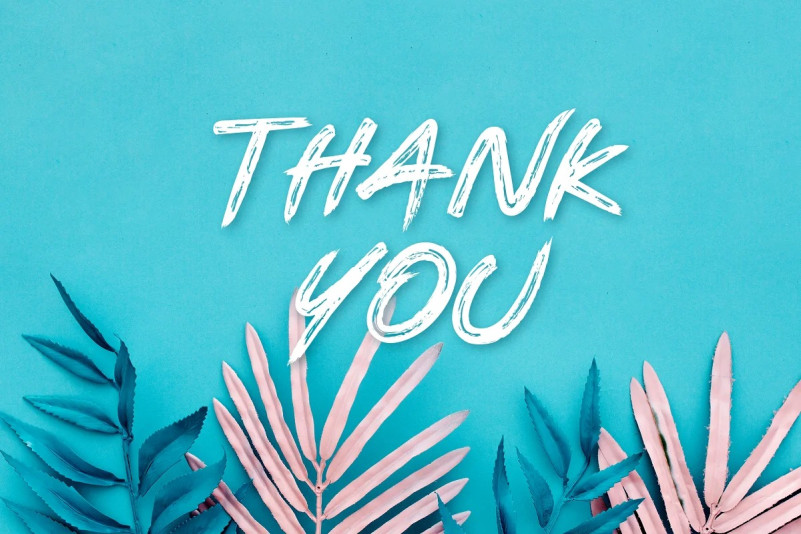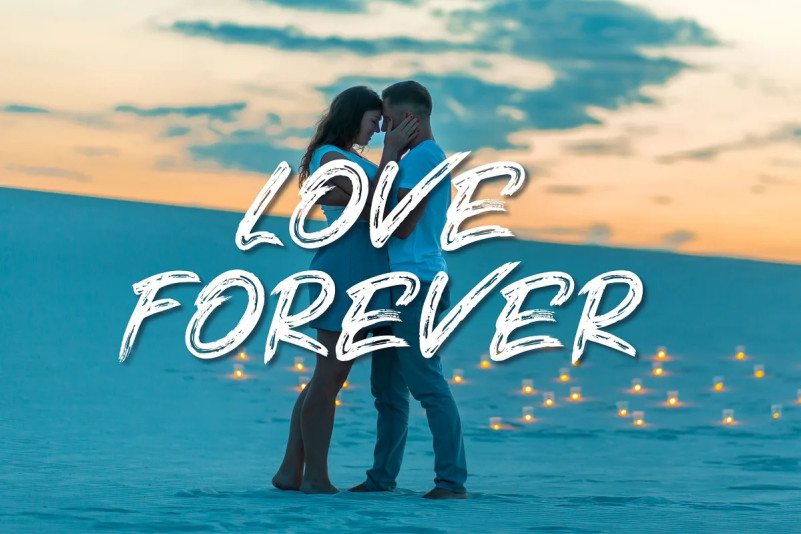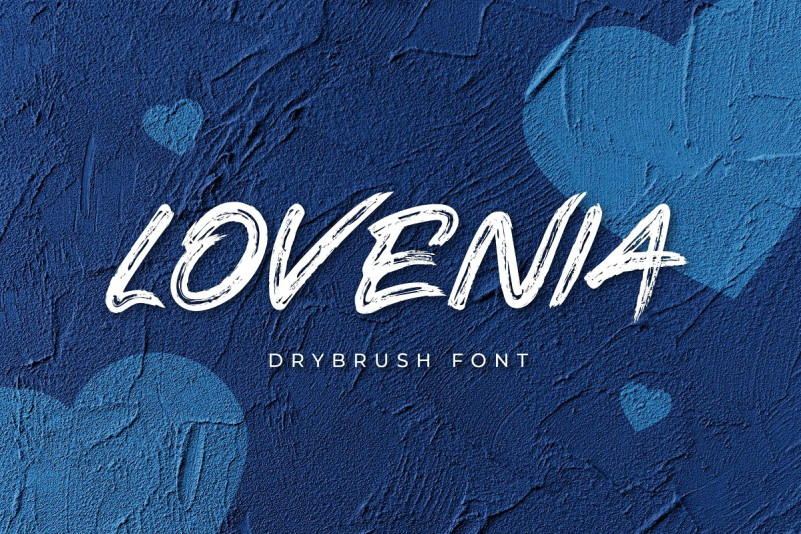
Lovenia Font
Lovenia Font – Modern brush font that feels beautiful classy, elegant, and modern. This font is ideally suited for a wide variety of projects, such as signature, stationery, logo, wedding, typography quotes, magazine or book covers, website headers, clothing, branding, packaging design, and more. Also, fashion-related branding or editorial design displays both masculine and feminine qualities.